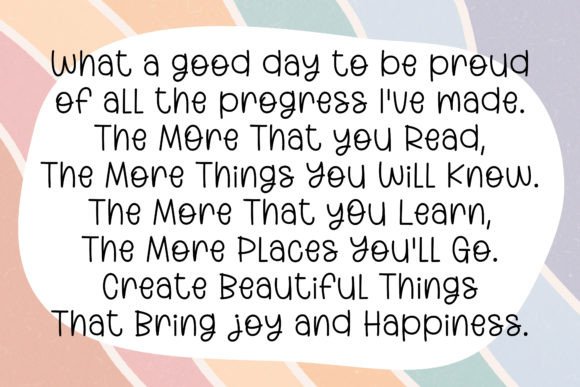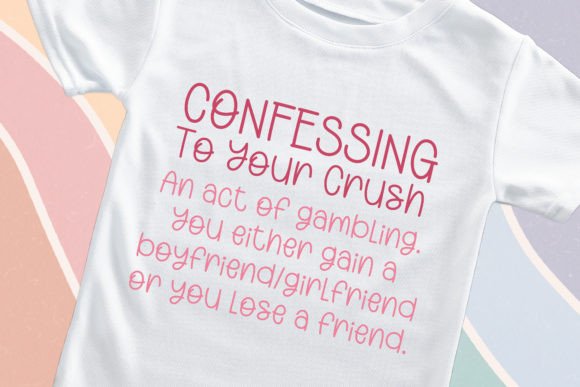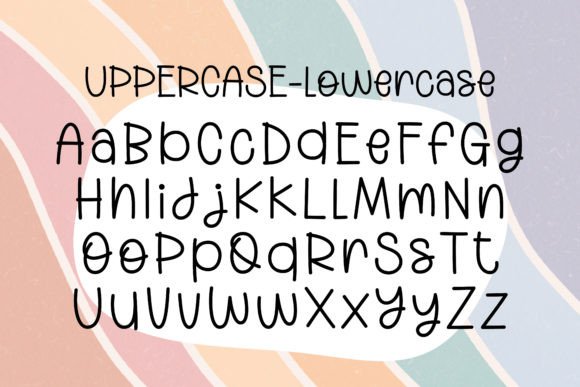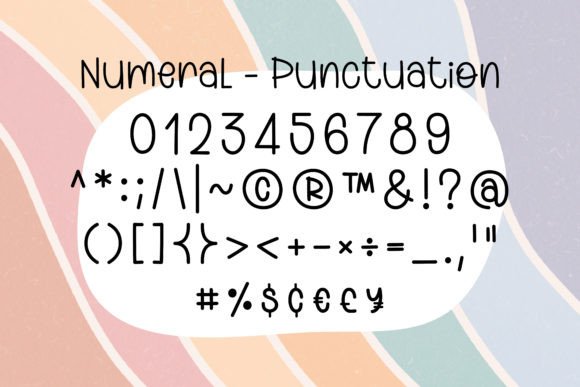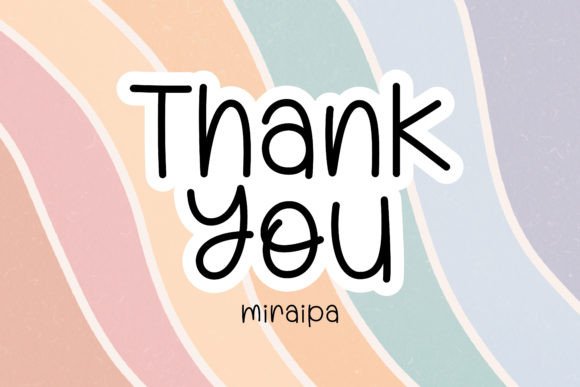
Introduction to Poked Font Font
Fonts play a crucial role in design, and the Poked Font font is a typeface that brings both character and versatility to any project. Whether you’re working on a branding project, a website, or a print design, the Poked Font font offers a unique style that can elevate your work.
| 📌 Font Name | Poked Font |
| 👤 Author | miraipa |
Poked is a cute and whimsical handwritten sans-serif font.
Key Features of Poked Font Font
Why Choose Poked Font Font?
The Poked Font font is more than just a typeface – it’s a design tool that helps you communicate your message with style and clarity. Its unique character set and versatile design make it suitable for a wide range of applications, from elegant invitations to bold headlines.
With its carefully crafted letterforms and balanced proportions, the Poked Font font ensures readability and visual appeal across all mediums.
What makes Poked Font font special?
The Poked Font font stands out with its unique design, exceptional readability, and versatility across various design applications.